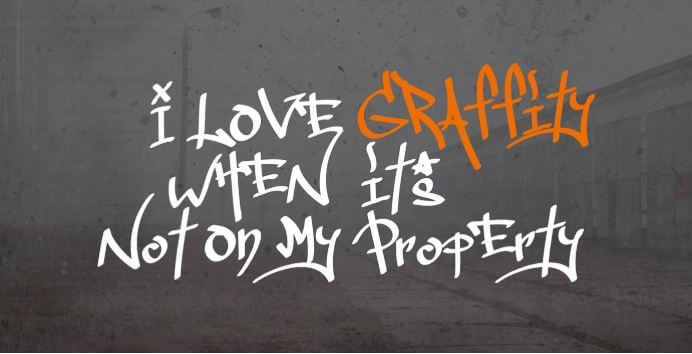
Hi Guys, welcome to Tag Type Font! Here we were presenting you an incredible text style family the label type textual style, Family. While making this content typeface, the originator took enough ideas on the consistency of the letters everywhere. This font is also called american graffiti font.
This written by hand text style family can have numerous sorts of glyphs, numerals just as swashes. Also, it has an outstandingly latha font style in the cutting edge age. Right now, the lion’s share of the architect took this provocative text style for their standard undertakings.
Label type text style Family has accompanied two attractive styles, and each method has 175 number of characters. Among the sharp highlights, it underpins, for the most part, useable global dialects. Hence, this standard text style has everything that a fashioner has requirements for making a one of a kind and immaculate plan.
Alongside its profoundly neat structures, You can apply this beautiful textual style anyplace you need. For instance, it has attractive titling capitals, swash structures, development of trimmings, book formats, planning images, marks, notices promoting, film title, imprinting on shirts, and considerably more.